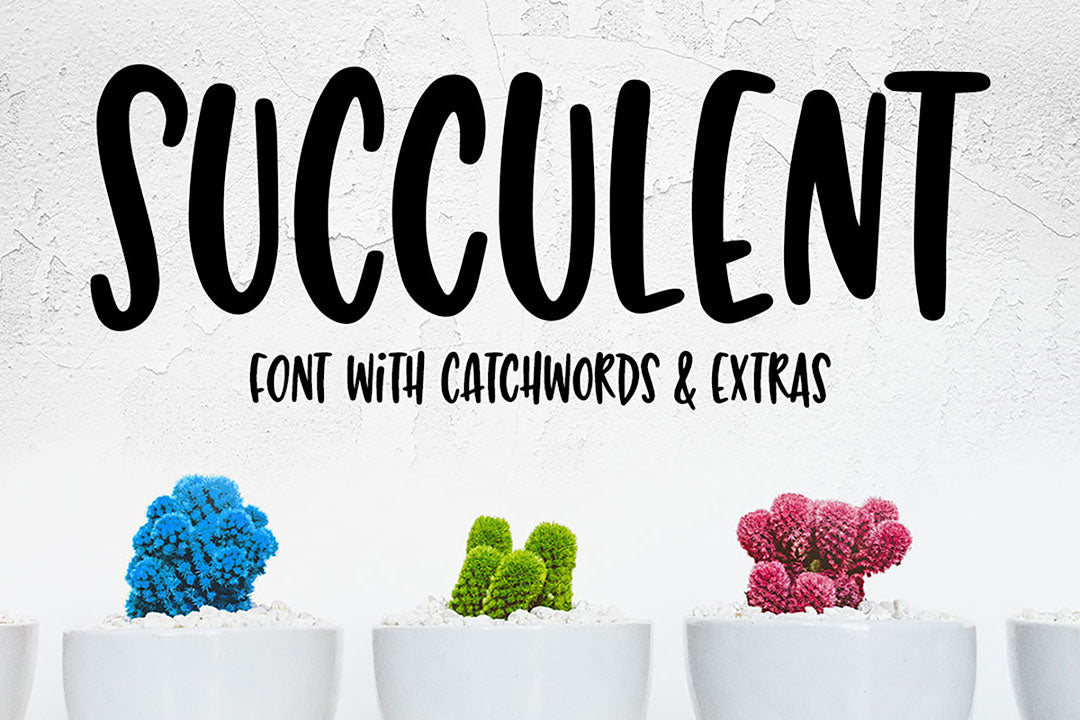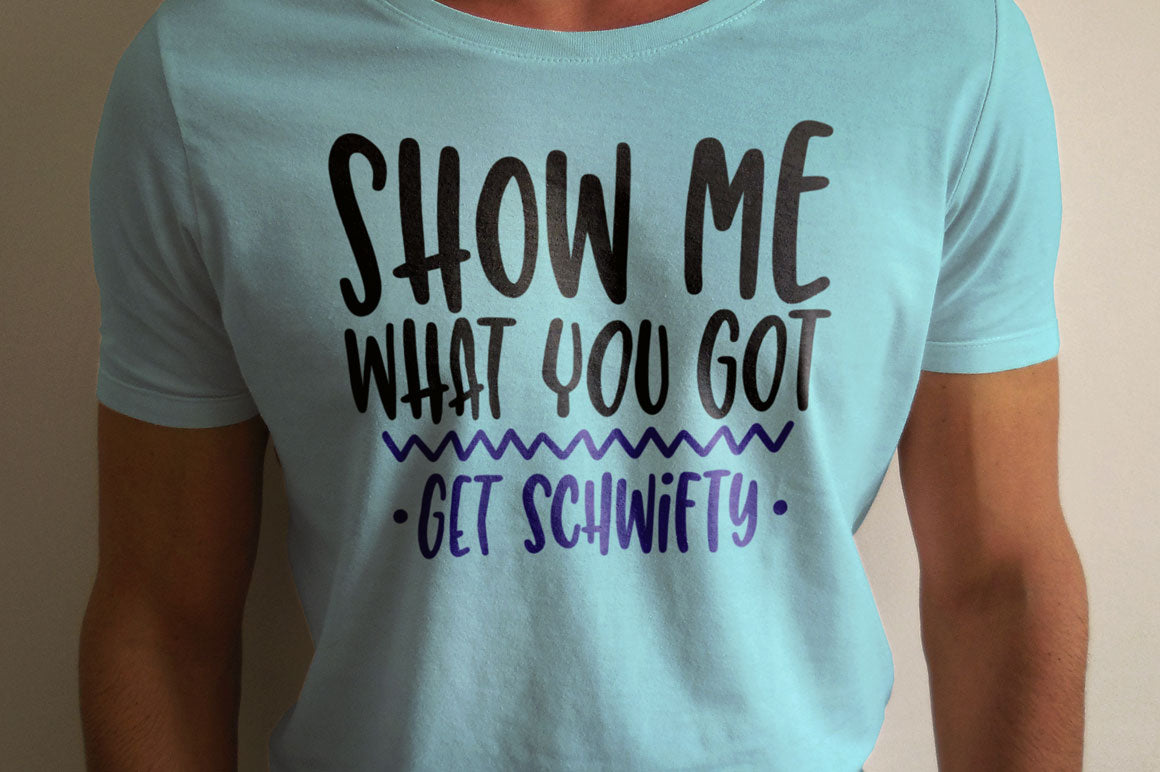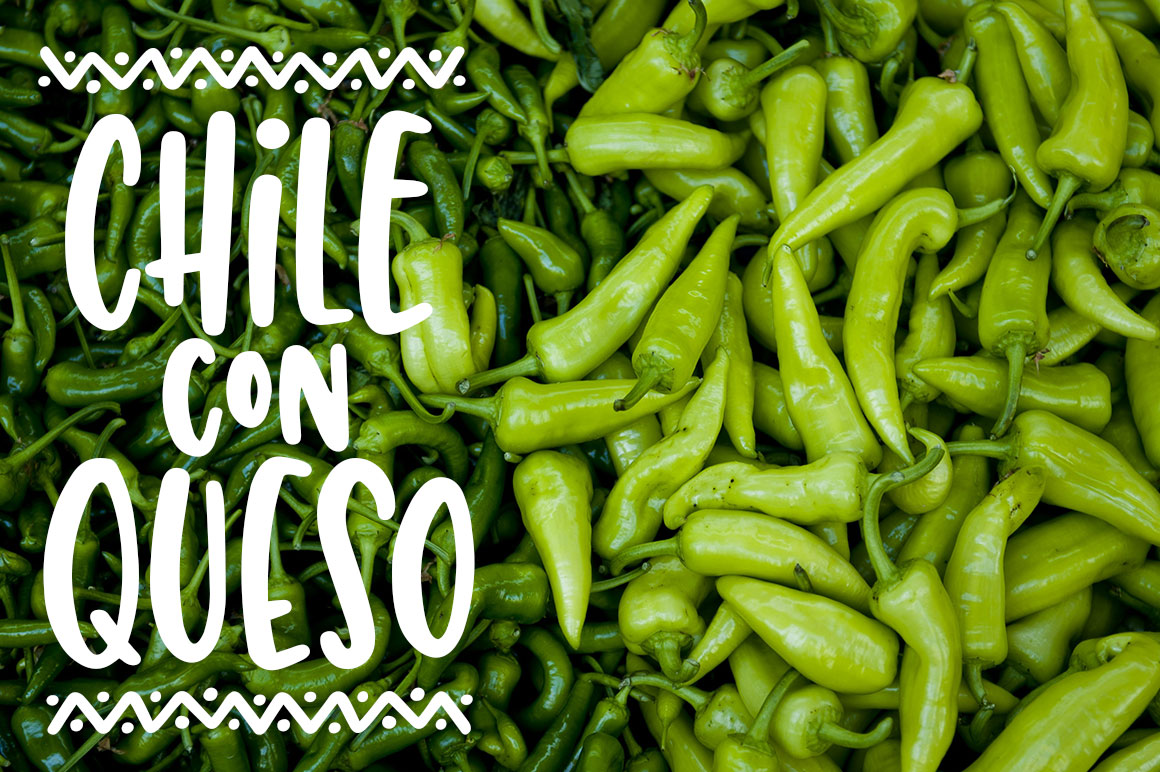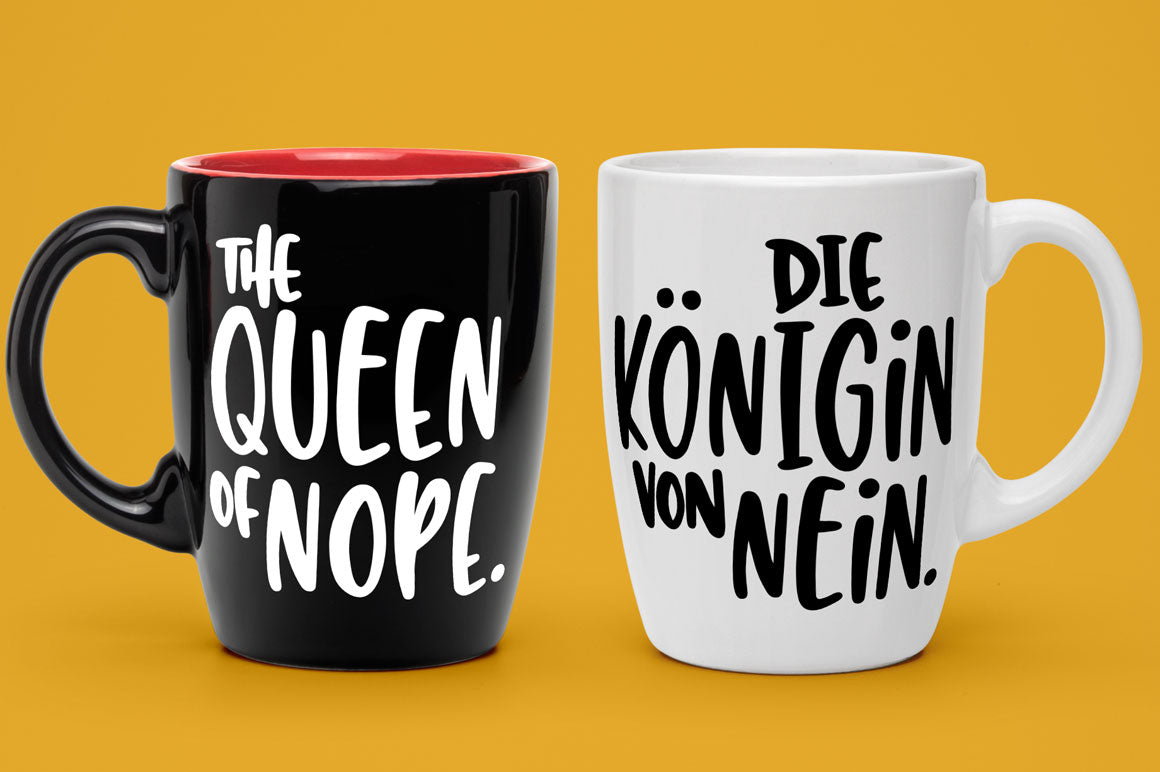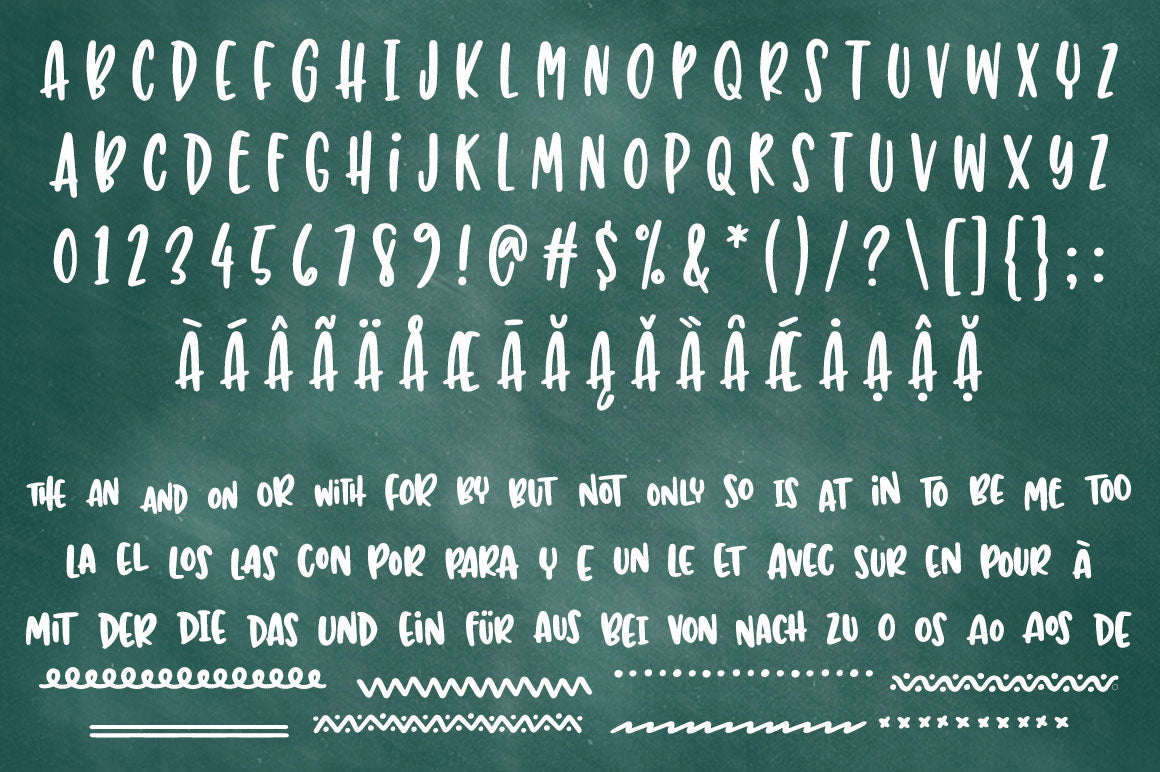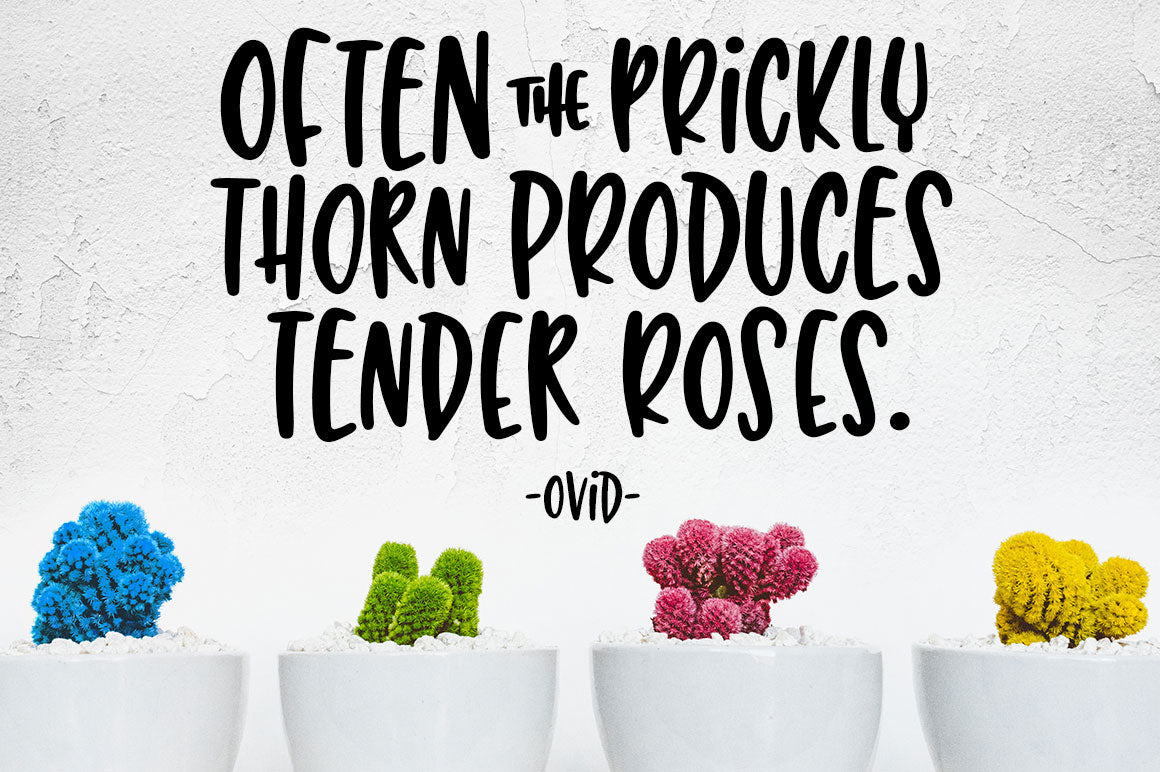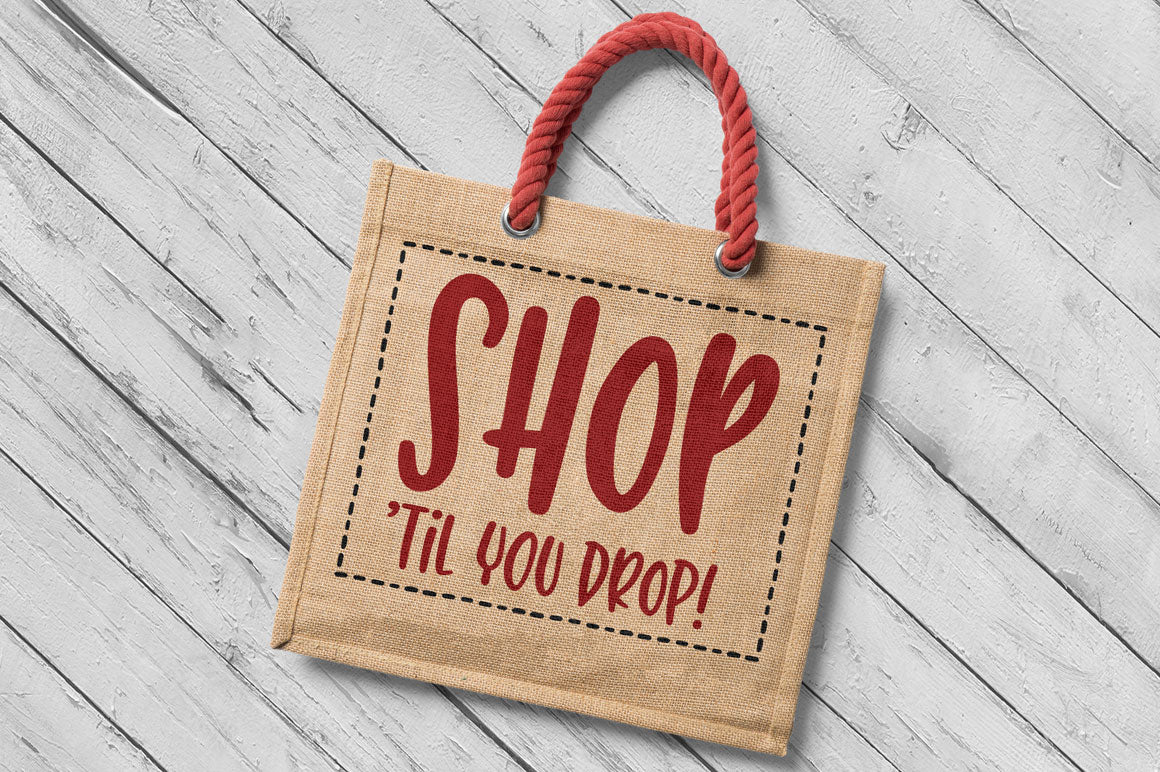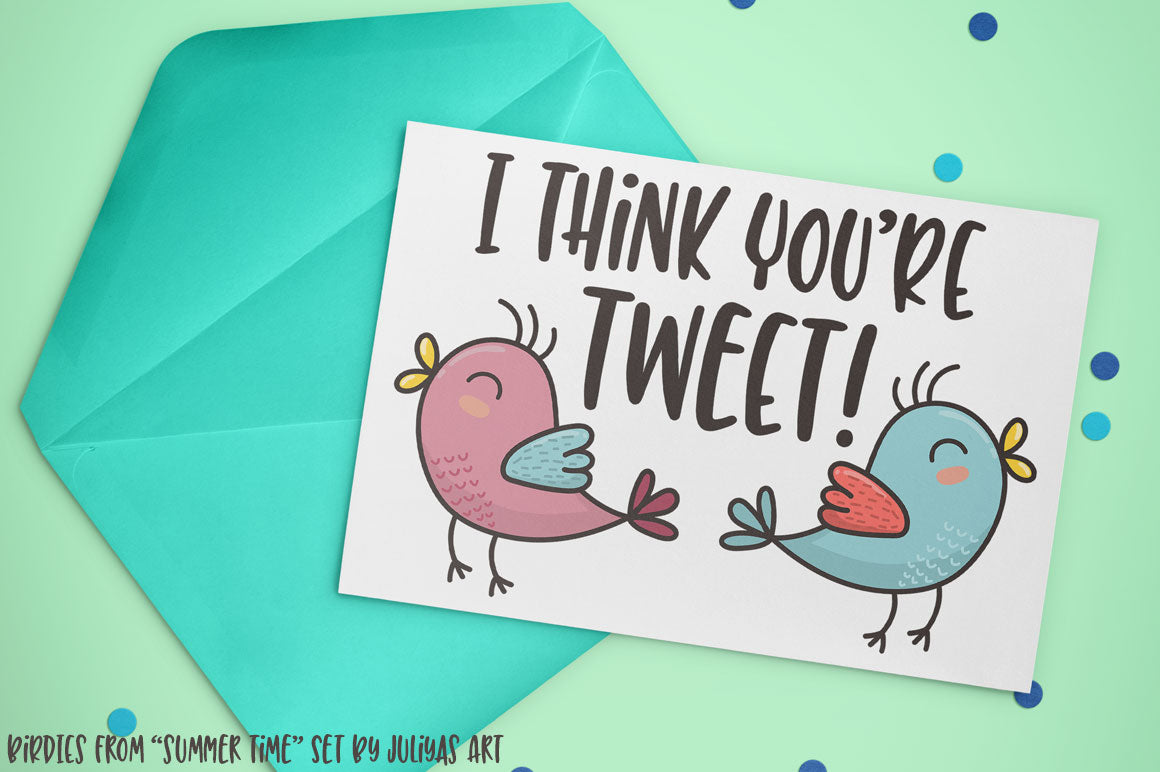
Say hello to Succulent, a fun hand-lettered font! This double-uppercase, tall and skinny font has a jaunty bounce -- perfect for cute all-ages projects! It's built in the style of one of my most-requested handwriting styles.
Succulent contains all the usual basics (A–Z, a–z, 0–9, punctuation). plus over 350 extended Latin characters for language support. In addition, there are 13 repeating border patterns and 60 small catchwords in a variety of languages in the Unicode Private Use Area (such as THE, AND, EIN, MIT, LOS, PARA, AVEC, DE, and lots more.)